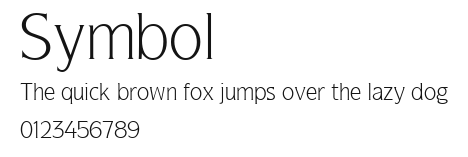
• Font Name: Symbol
• Full Font Name: Symbol Regular
About Symbol.ttf
Symbol.ttf is a modern, elegant sans-serif font designed for ultimate readability and visual harmony. Perfect for branding, headlines, web design, and print materials.